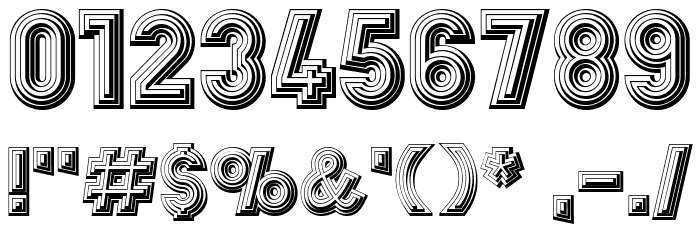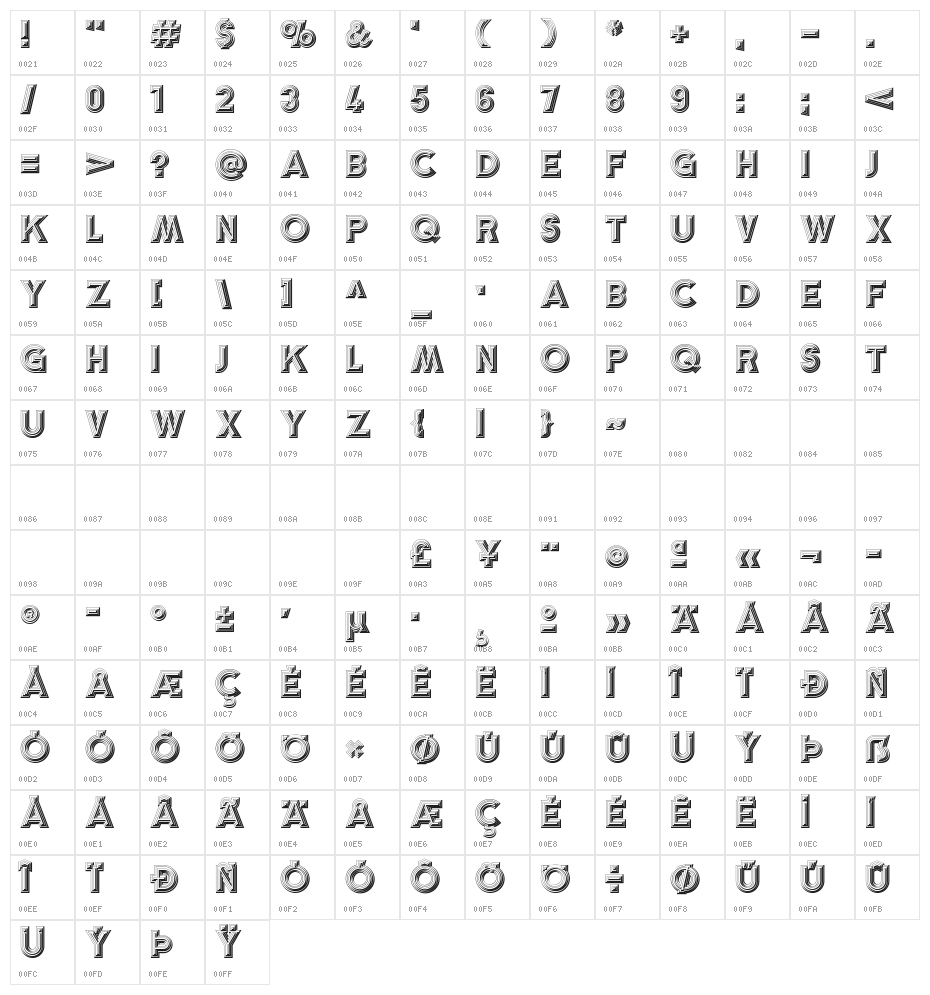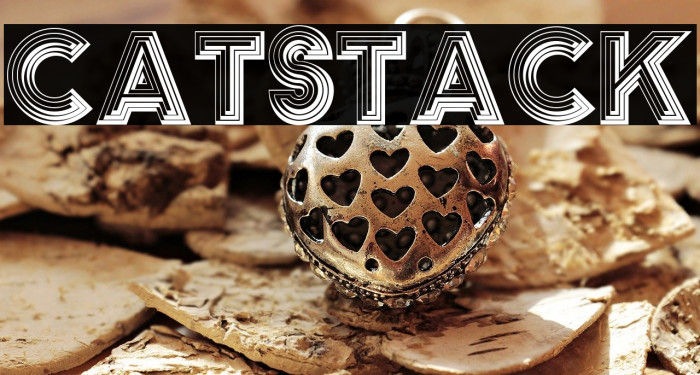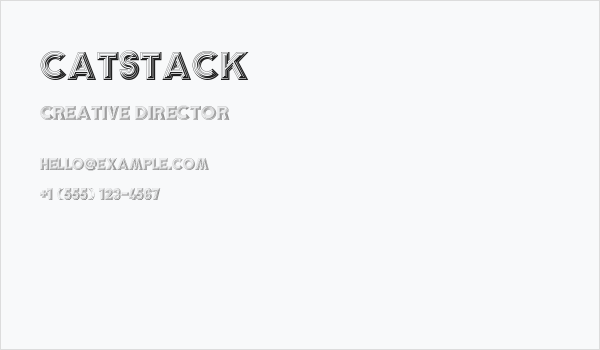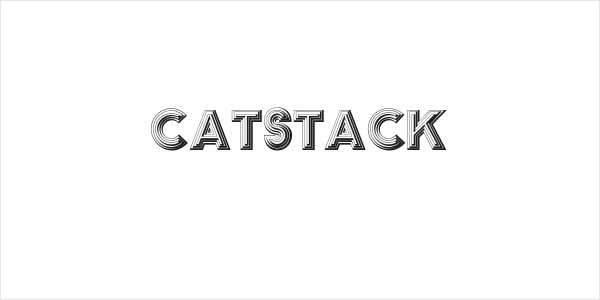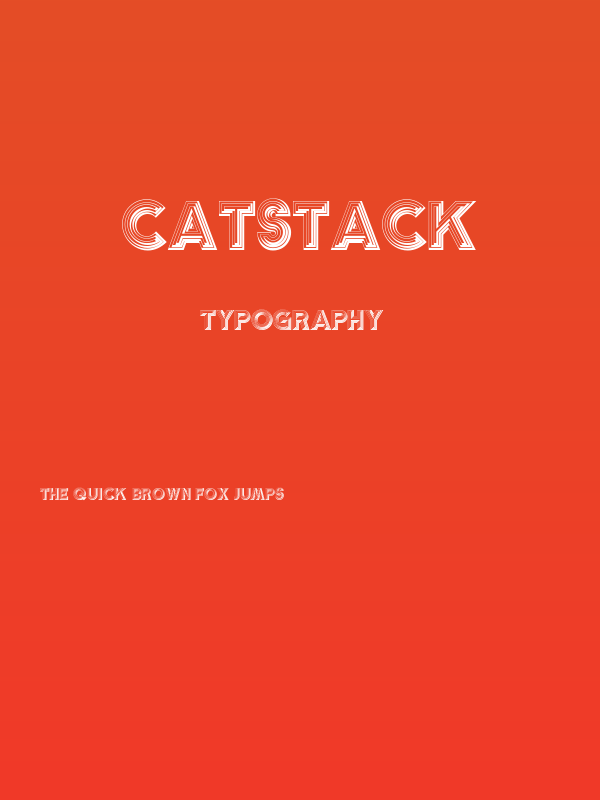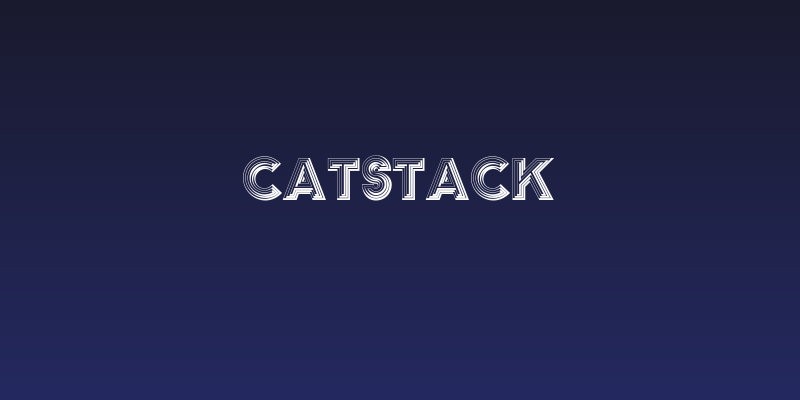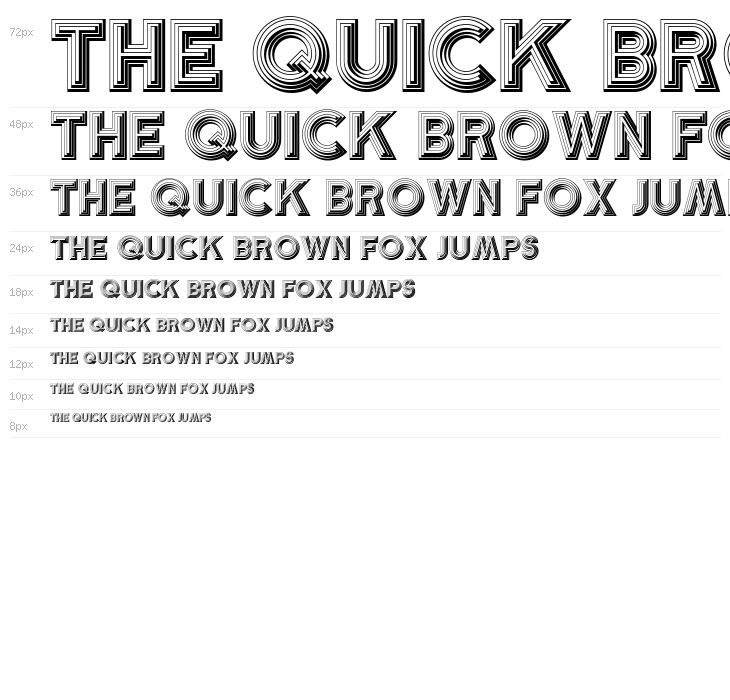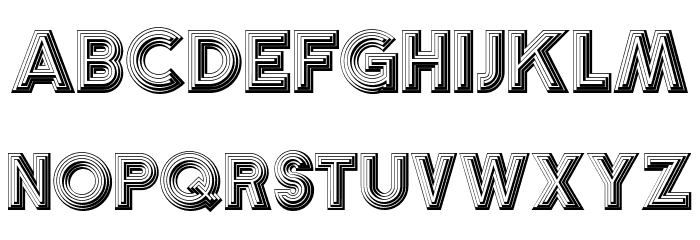
CATStack Font
CATStack Description
This font features a bold, three-dimensional effect with multiple outlines creating a stacked appearance. The letters are uppercase and have a geometric, block-like structure, giving them a strong and impactful presence. The design is highly decorative, with each character having a layered look that adds depth and visual interest. The font maintains a consistent width across all characters, ensuring uniformity in its presentation. The numbers and special characters follow the same stylistic approach, making the entire set cohesive and visually striking.